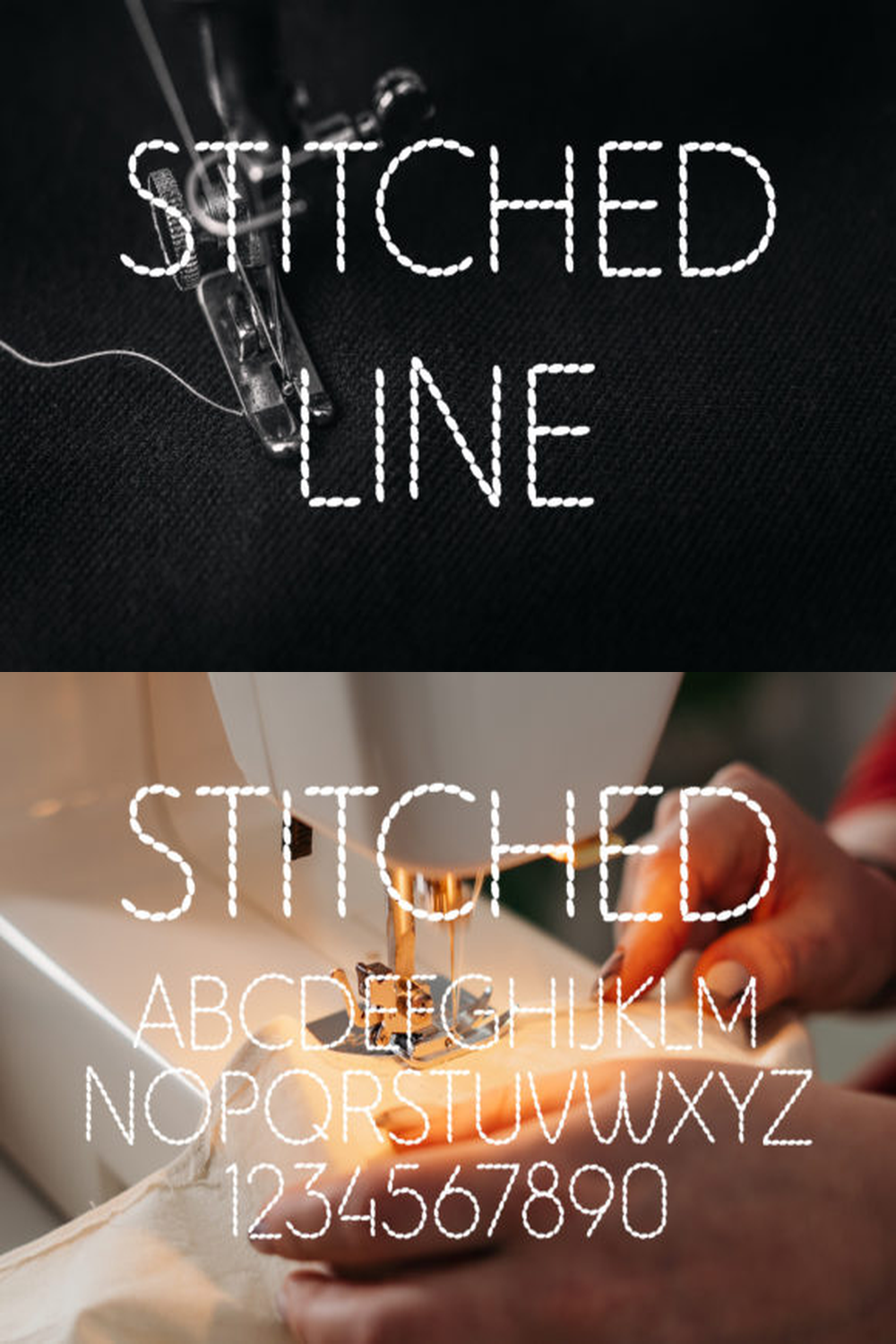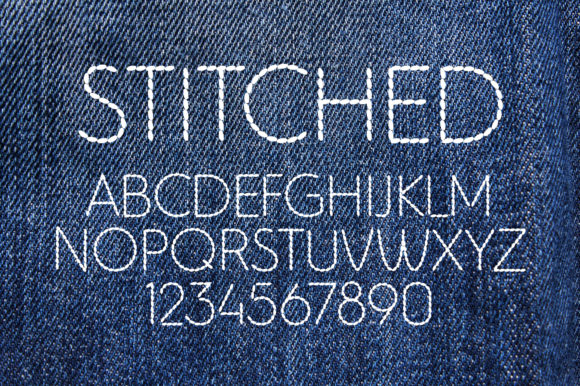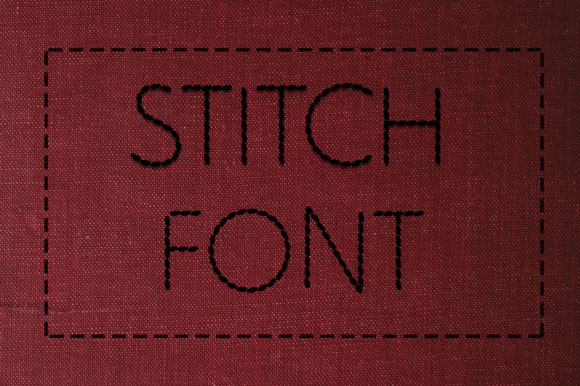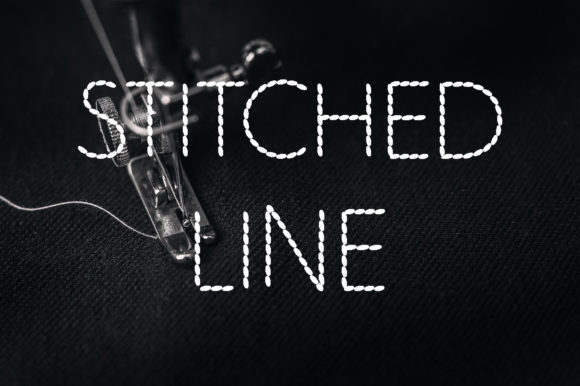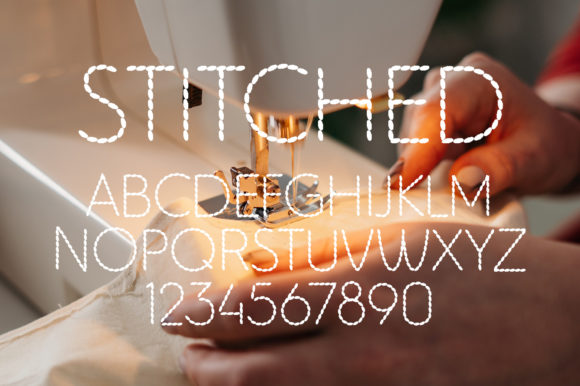
Stitched Line Font: A Unique Display Font for Cricut & Craft Projects
About the Stitched Line Font
The wait is over! The incredible Stitched Line Font is now available for your design toolkit. Stitched Line is an incredibly unique and simple display font. Get inspired by its incredibly versatile style and use it to create lovely designs!
Stitched Line Font Usage Examples